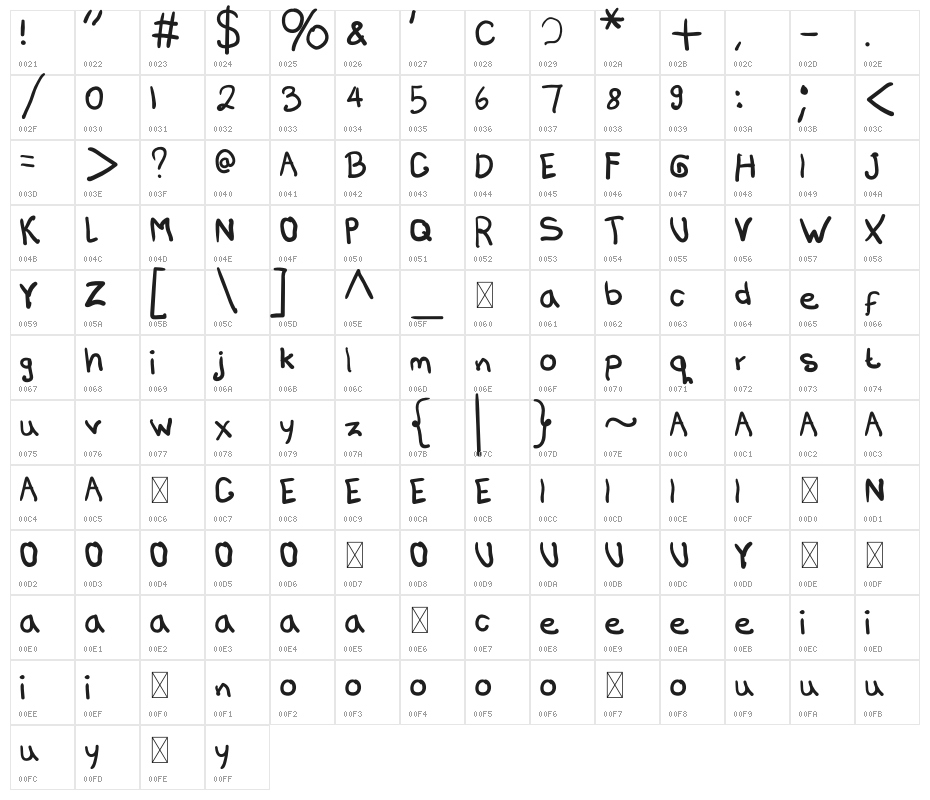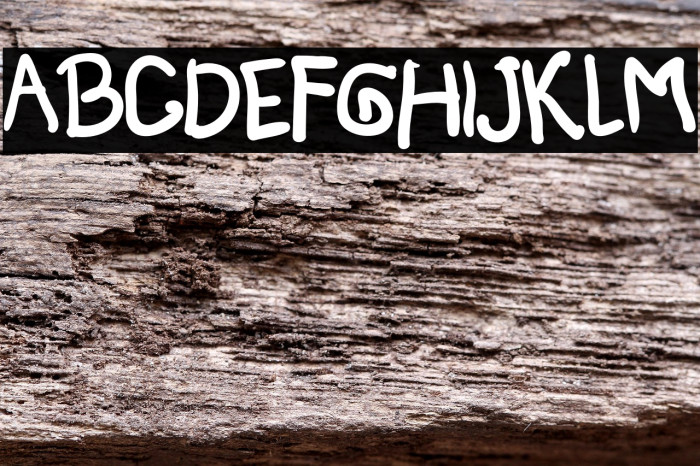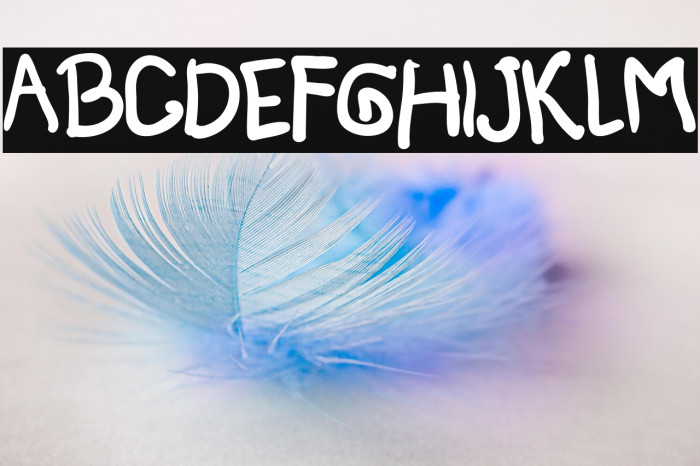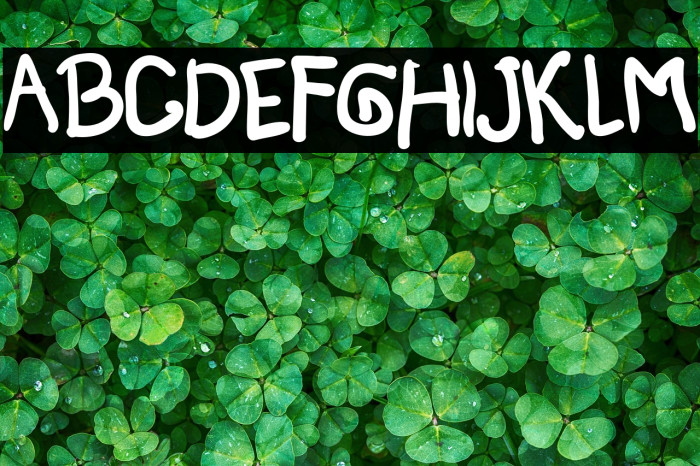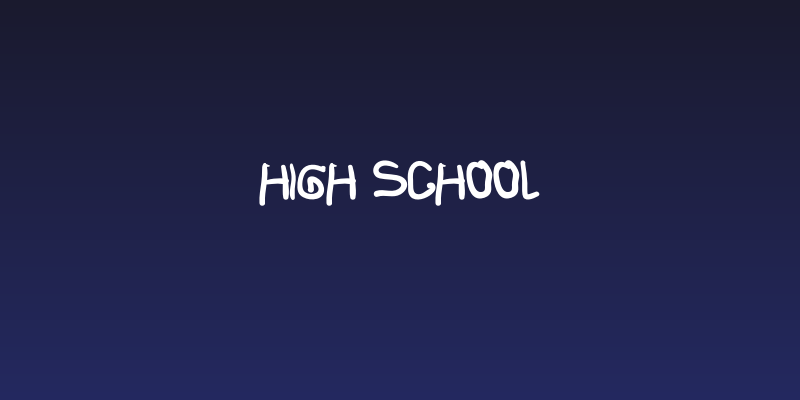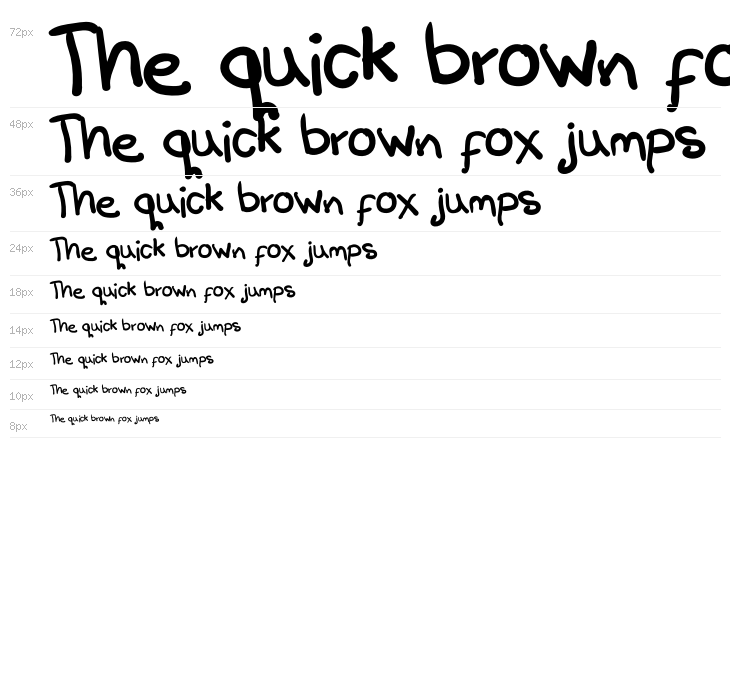
High School Font
High School Description
This playful and energetic font features a handwritten style with a casual and informal appearance. The letters are bold and slightly irregular, giving them a lively and youthful feel. The strokes are thick and rounded, contributing to a friendly and approachable look. The uppercase and lowercase letters maintain a consistent style, with some characters showing unique quirks that add to the font's charm. The numbers and special characters are equally expressive, fitting seamlessly with the overall design. This font is perfect for projects that aim to convey a sense of fun and creativity.
| Overall Style | Playful |
| Use Case | Headlines, Logos, Informal Text |
| Proposed Projects | Ideal for children's books, school projects, playful branding, and casual invitations. |